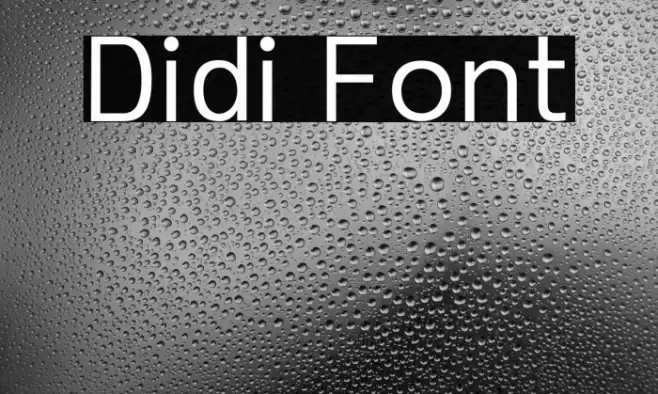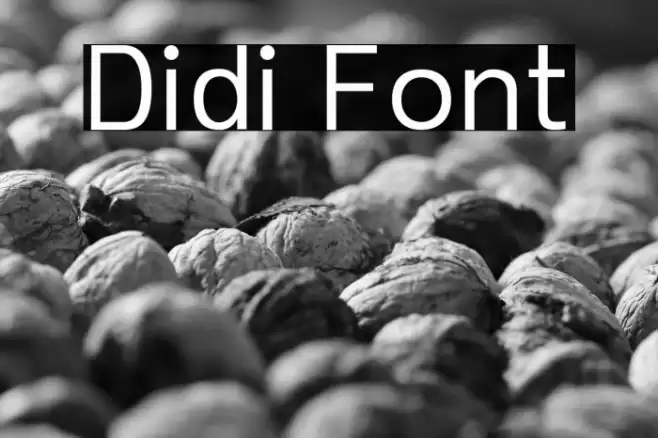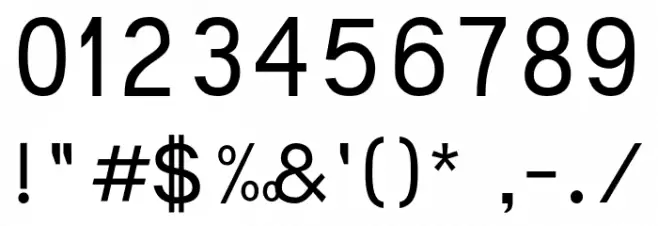
Didi Font
Didi Description
This font features a clean and modern sans-serif design with a focus on readability and simplicity. The characters are evenly spaced, with a consistent stroke width that provides a balanced and harmonious appearance. The uppercase and lowercase letters are well-proportioned, making it suitable for a wide range of applications. The numerals are clear and distinct, ensuring legibility in various contexts. Special characters are included, maintaining the font's cohesive style. Overall, this font exudes a contemporary and professional feel, ideal for digital and print media.
A modern, clean sans-serif font with balanced proportions and excellent readability from Regular fonts.